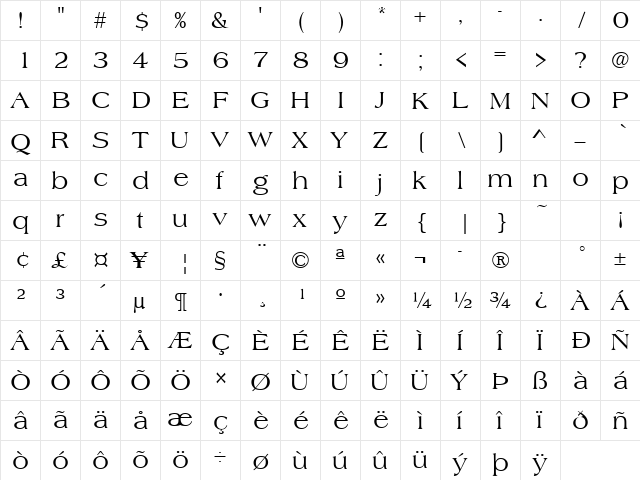
Ambassador Regular
Design Context for Ambassador Typeface
Ambassador offers clean, dependable letterforms without strong stylistic allegiance, making it a practical choice for designers who need flexibility.